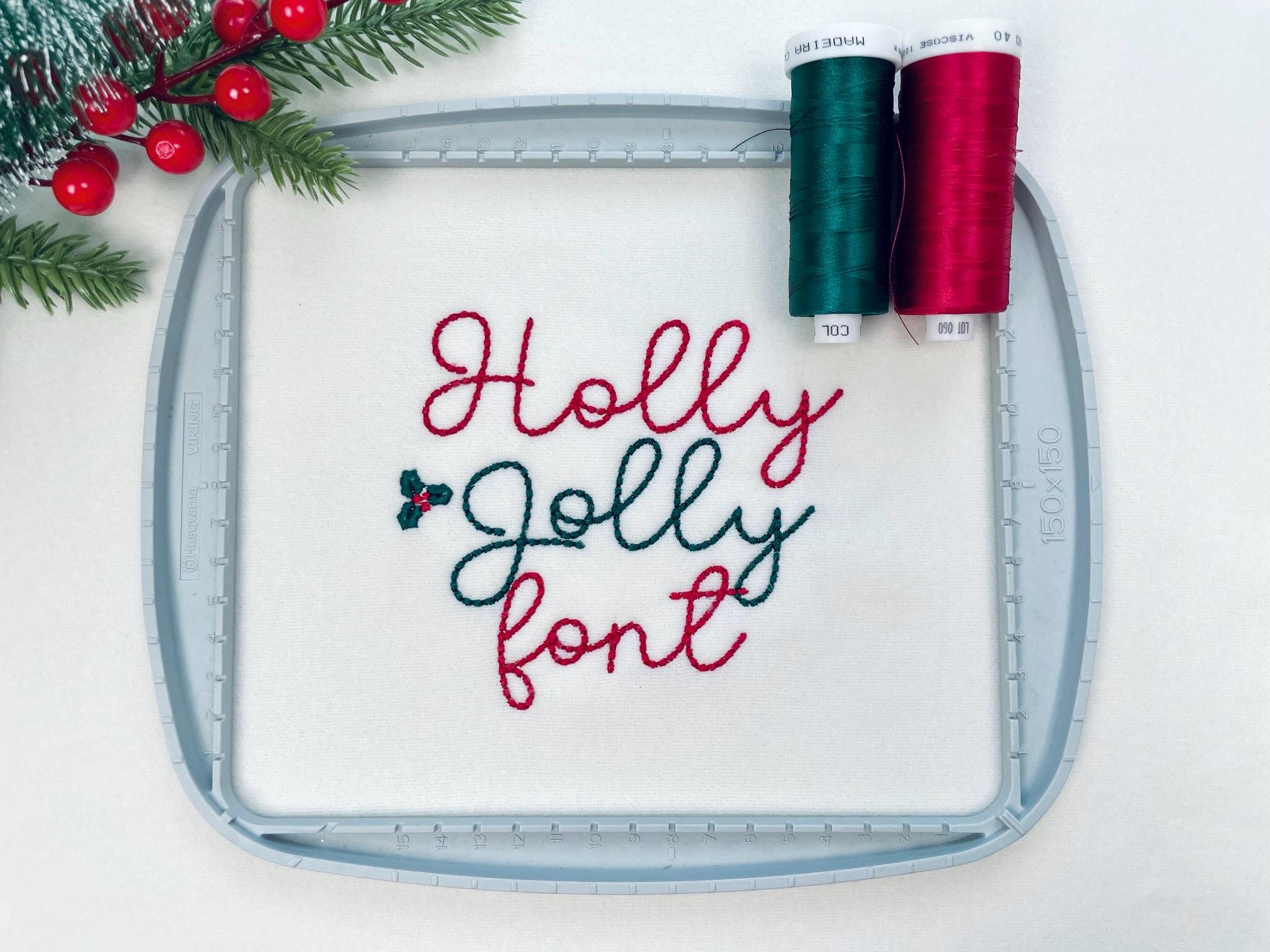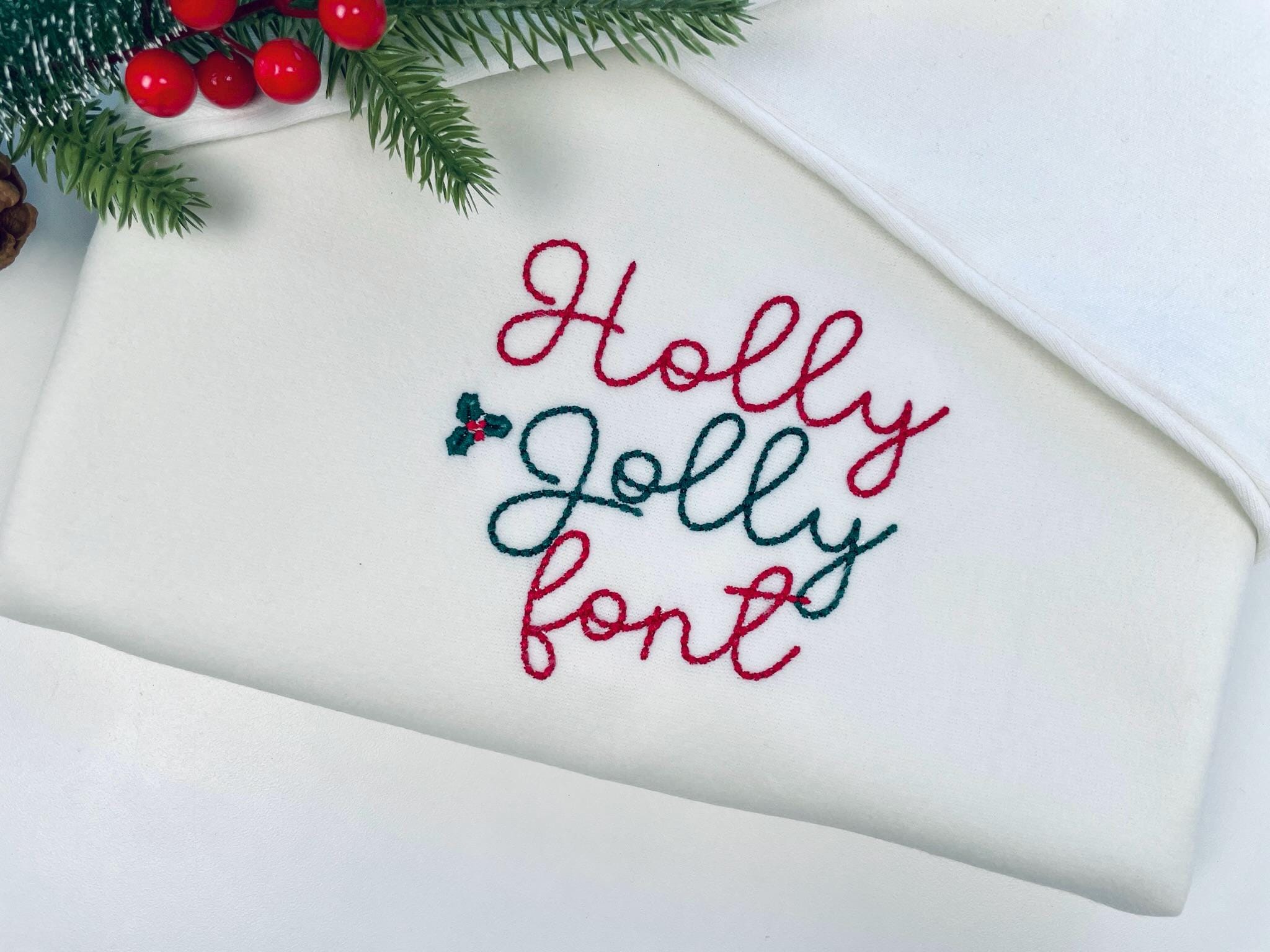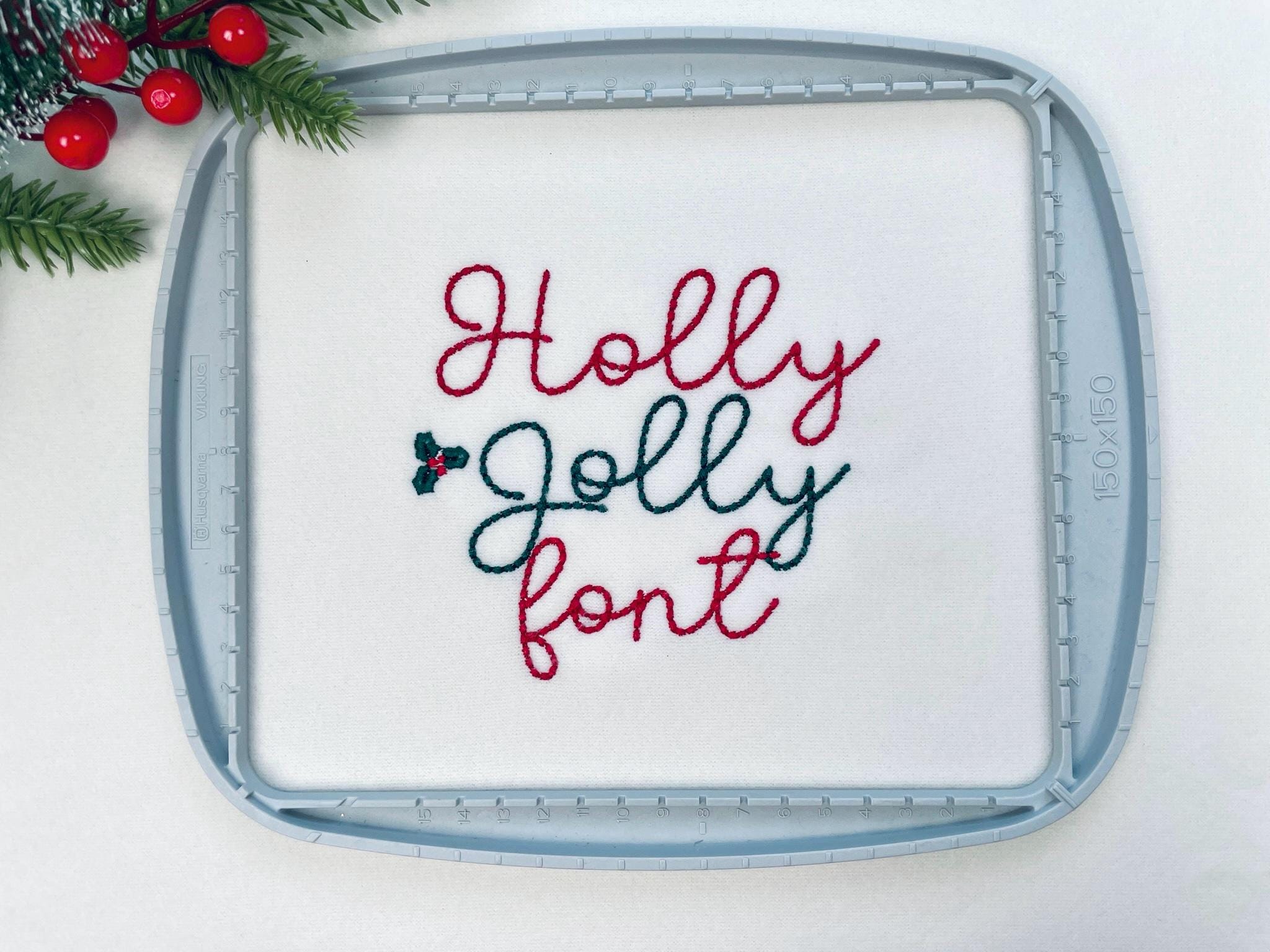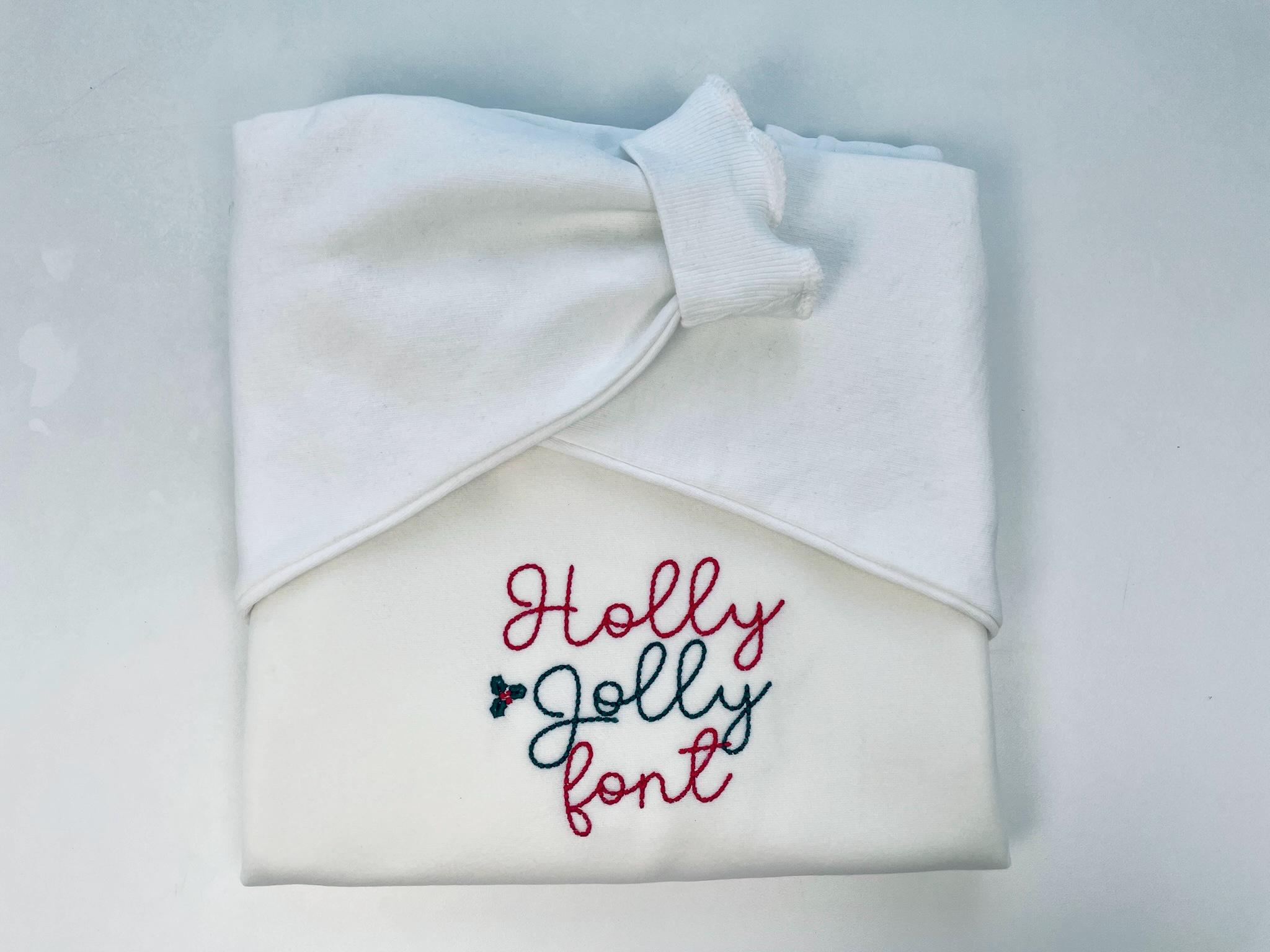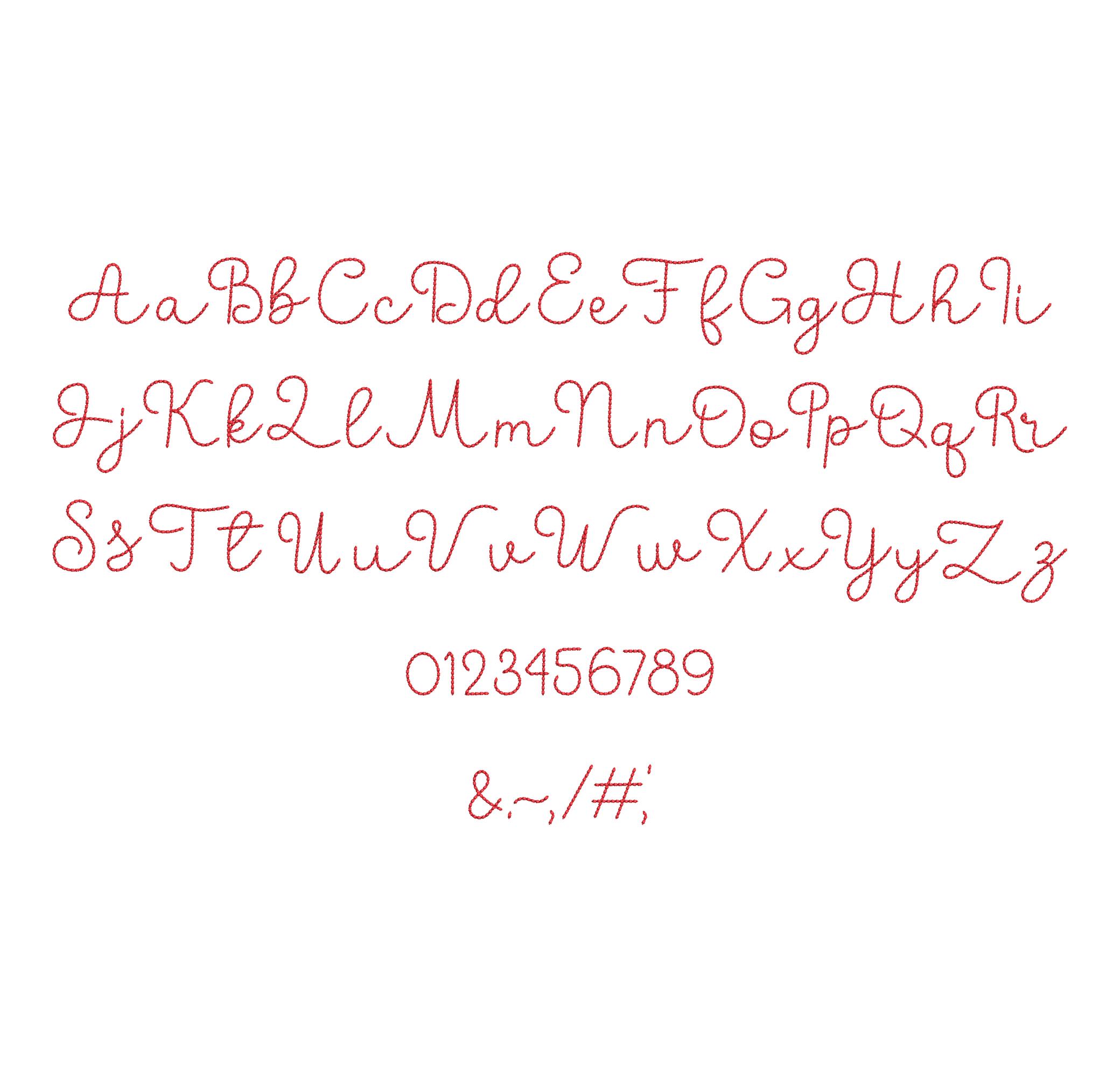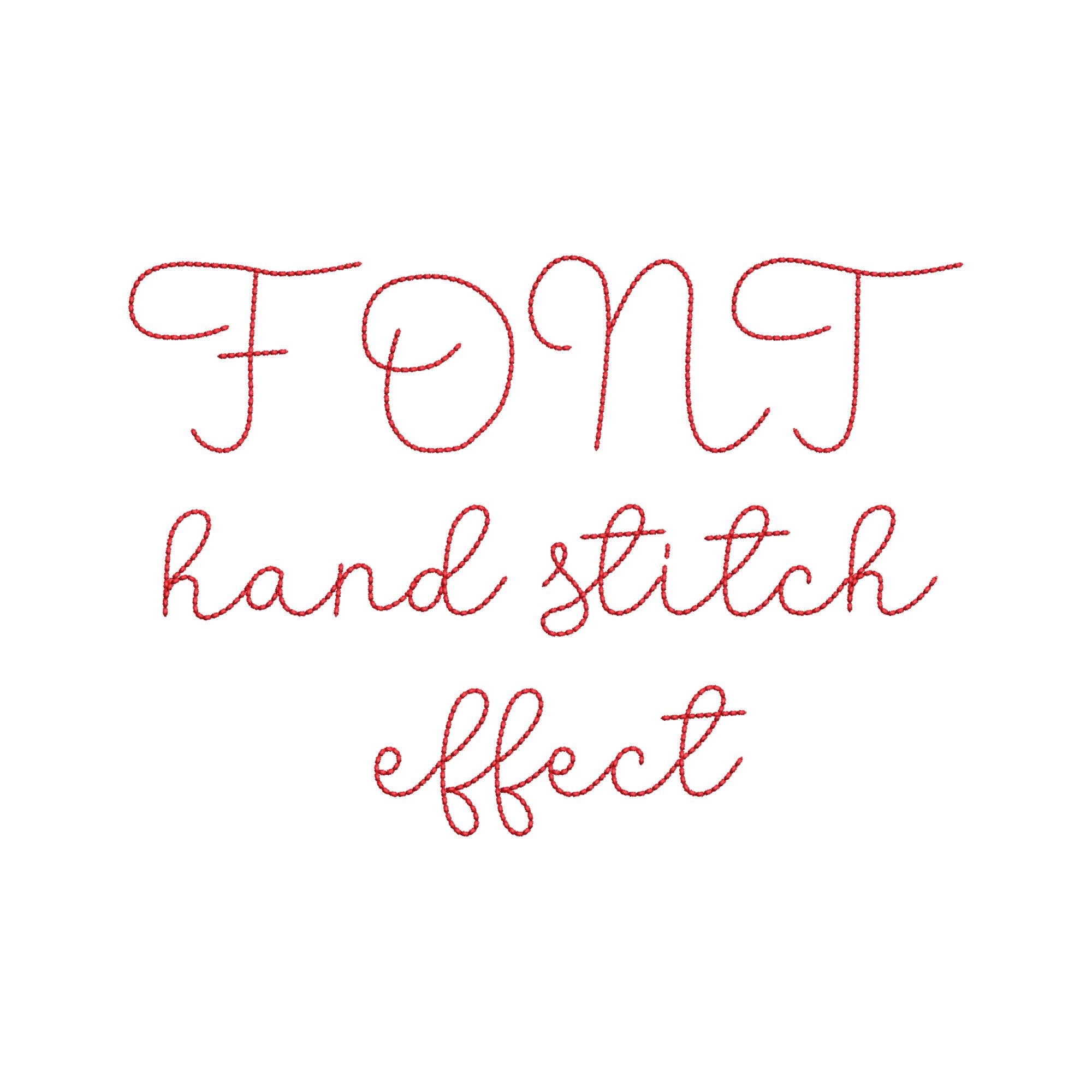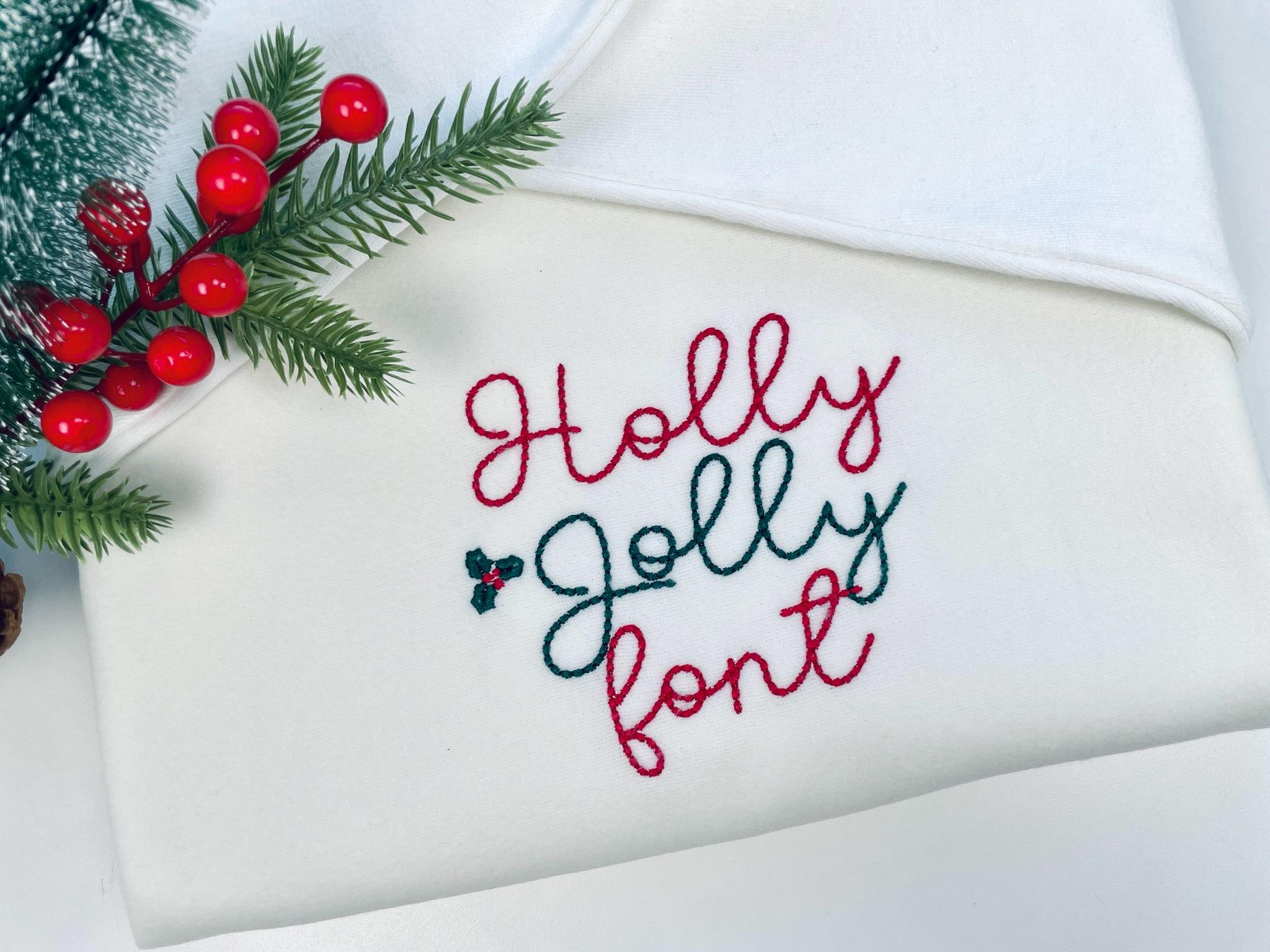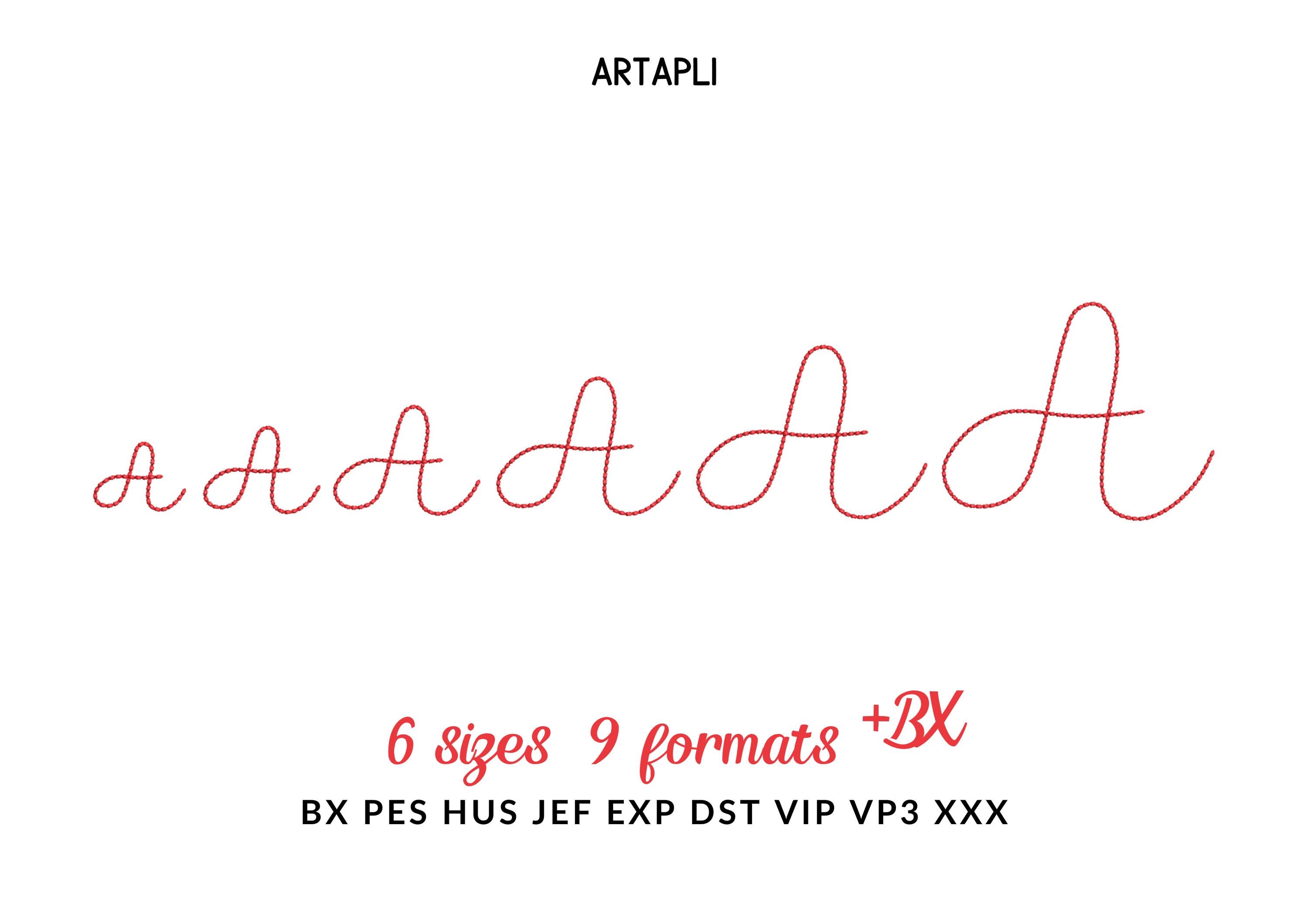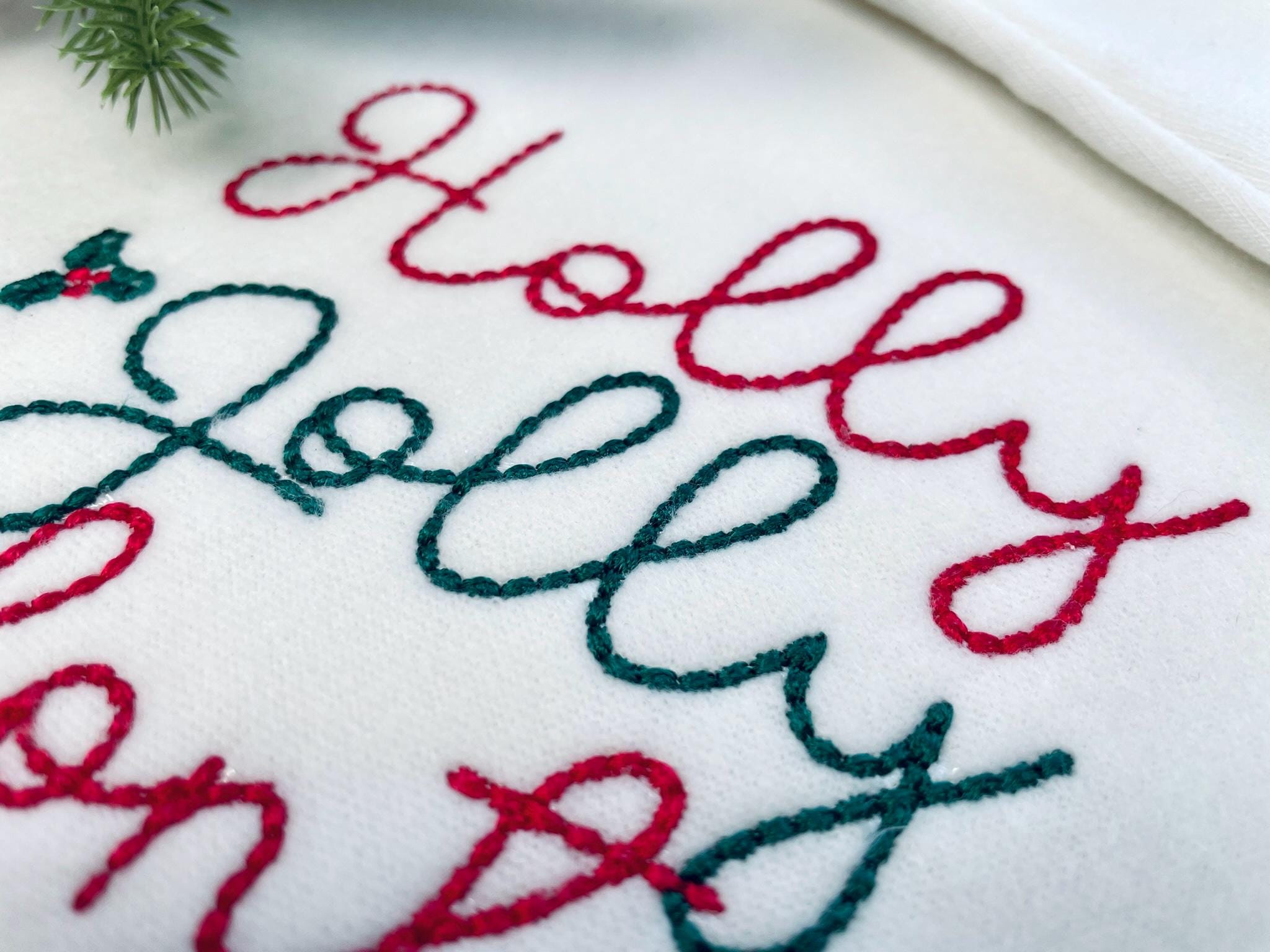
Hand stitch effect FONT ButterScript machine embroidery designs assorted sizes handwritten script alphabet Monogram kids seed stitch and BX
Entire alphabet: uppercase and lowercase letters, numbers, and punctuation as shown in the images.